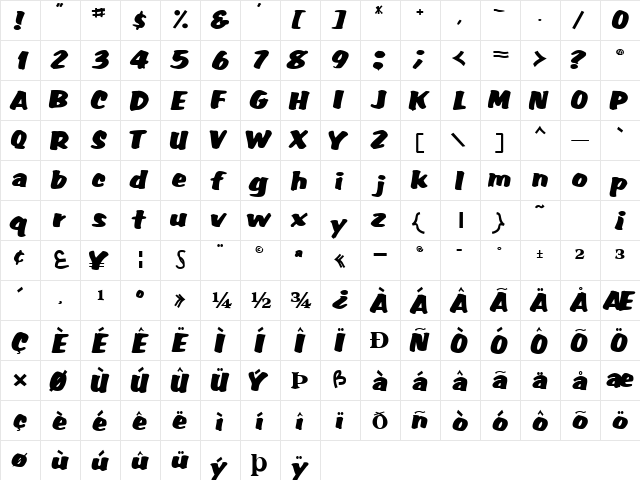
FatBackPlus14 Bold
Design Context for FatBackPlus14 Typeface
FatBackPlus14 is a composed and adaptable typeface that performs quietly and consistently across a wide range of design contexts. The heavy weight commands attention and anchors typographic hierarchies.